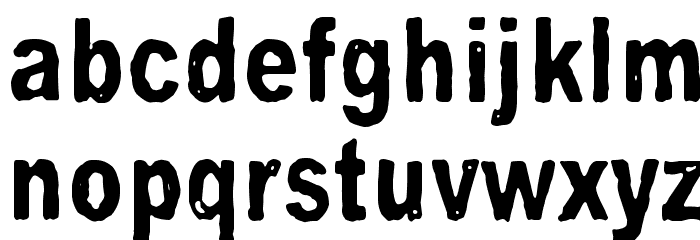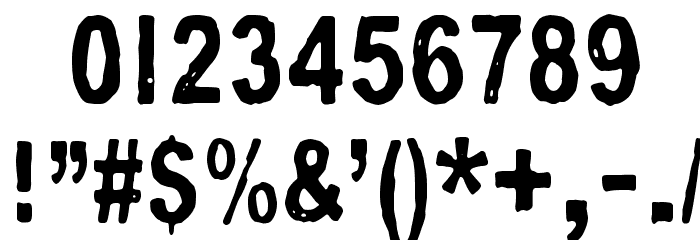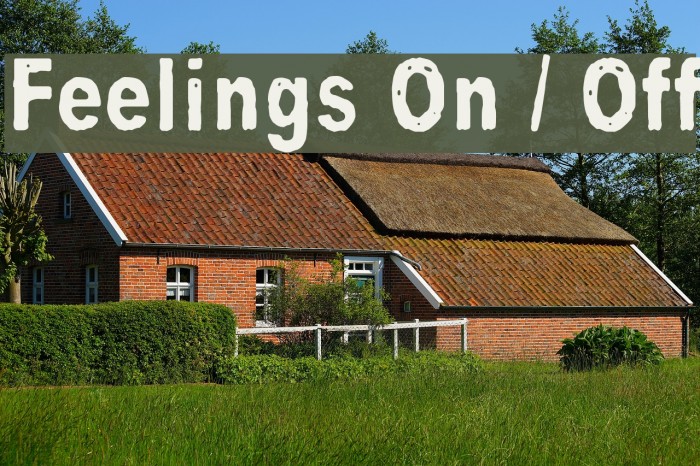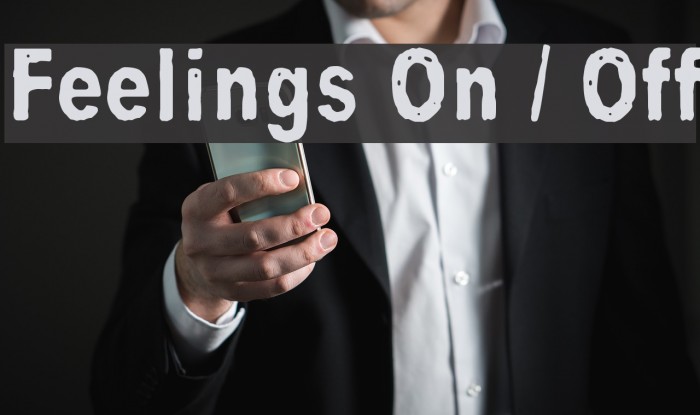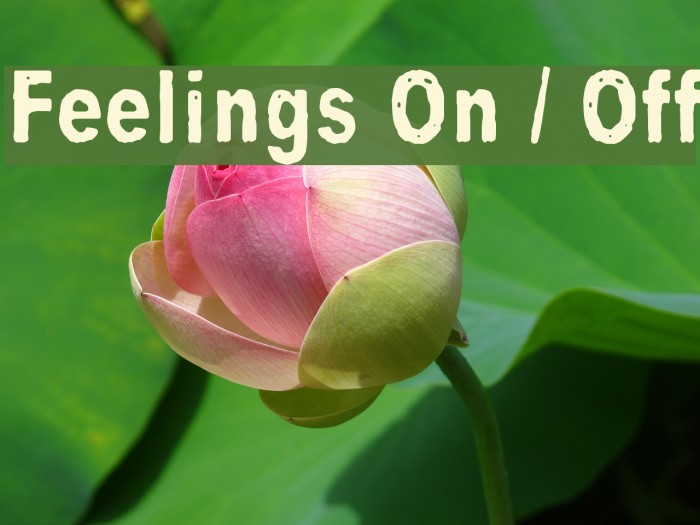
Feelings On / Off Font
This font exhibits a playful and slightly distressed appearance, characterized by its bold and uneven strokes. The letters have a hand-drawn quality, giving them a unique and organic feel. The uppercase and lowercase letters maintain a consistent style, with rounded edges and a slightly irregular baseline, adding to the whimsical nature of the font. The numbers and special characters follow the same design principles, ensuring a cohesive look across all characters. This font's distinctive style makes it suitable for projects that require a touch of creativity and informality.
A playful, hand-drawn font with bold, uneven strokes and a whimsical feel.
- Proposed Projects: Ideal for children's books, creative posters, casual branding, and playful invitations.
- Overall Style: Playful, Hand-drawn